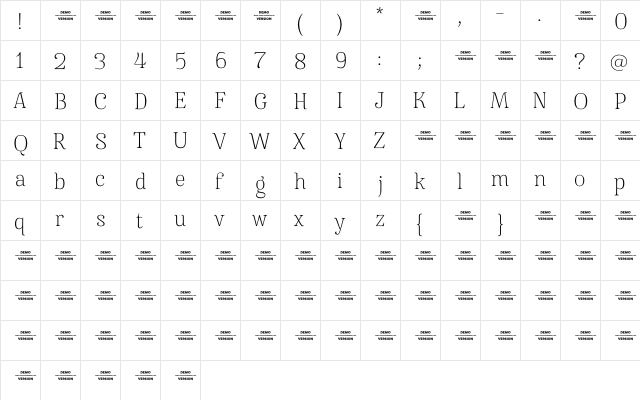
Famosa Thin Demo
Design Context for Famosa Typeface
Famosa takes a measured approach to typography — its balanced proportions and neutral character make it a reliable workhorse for both digital and print work. The delicate stroke weight brings airiness and refinement to layouts.